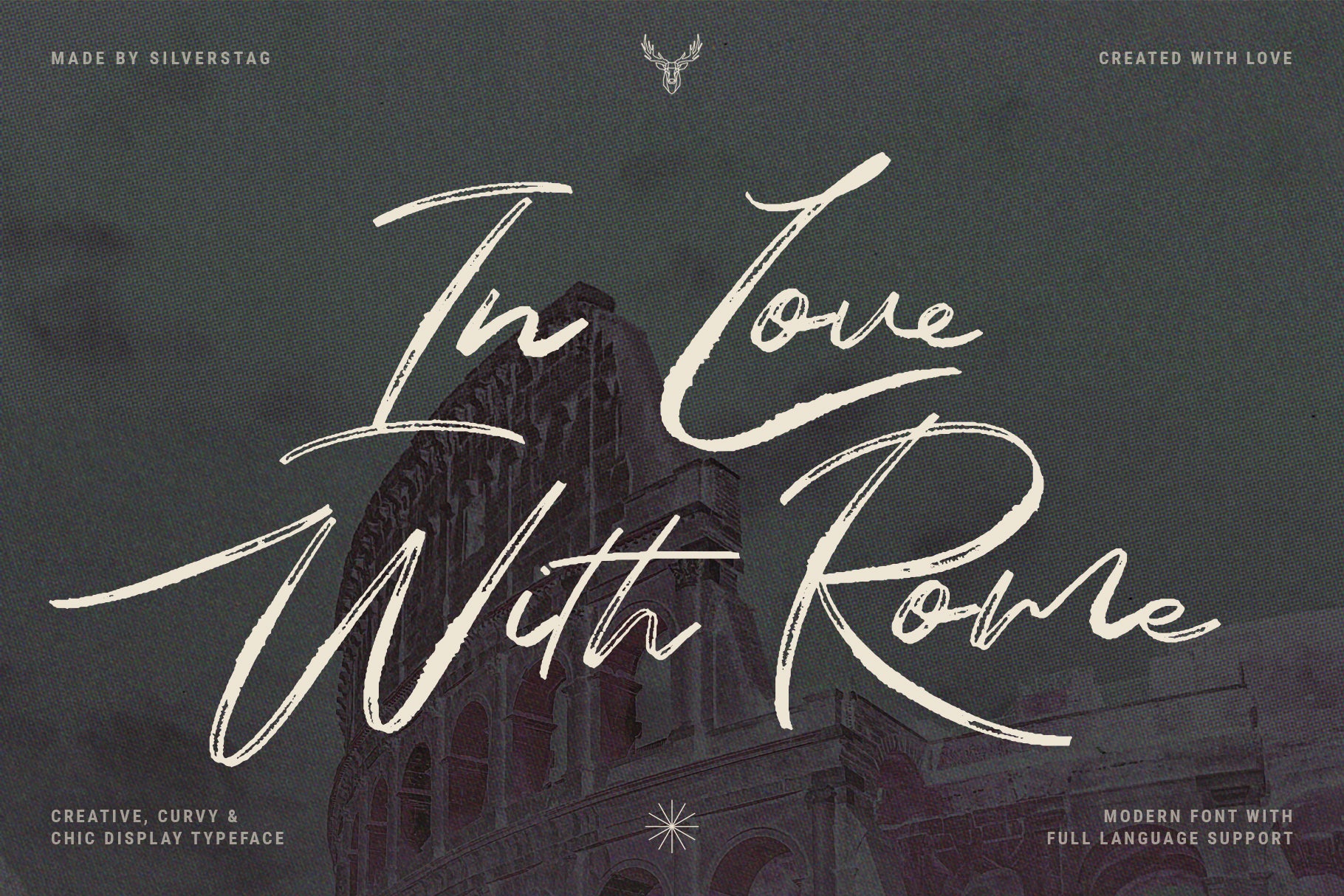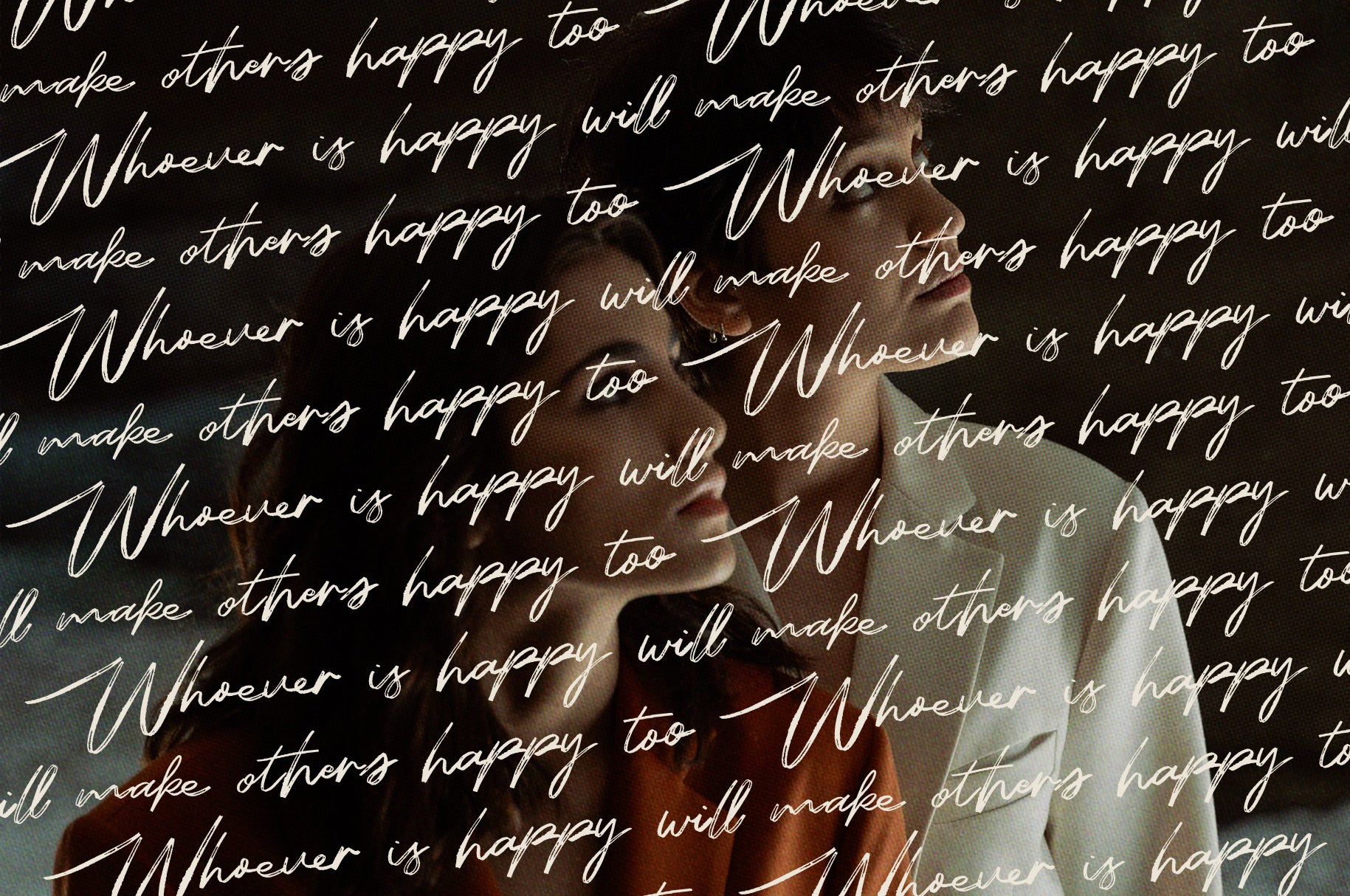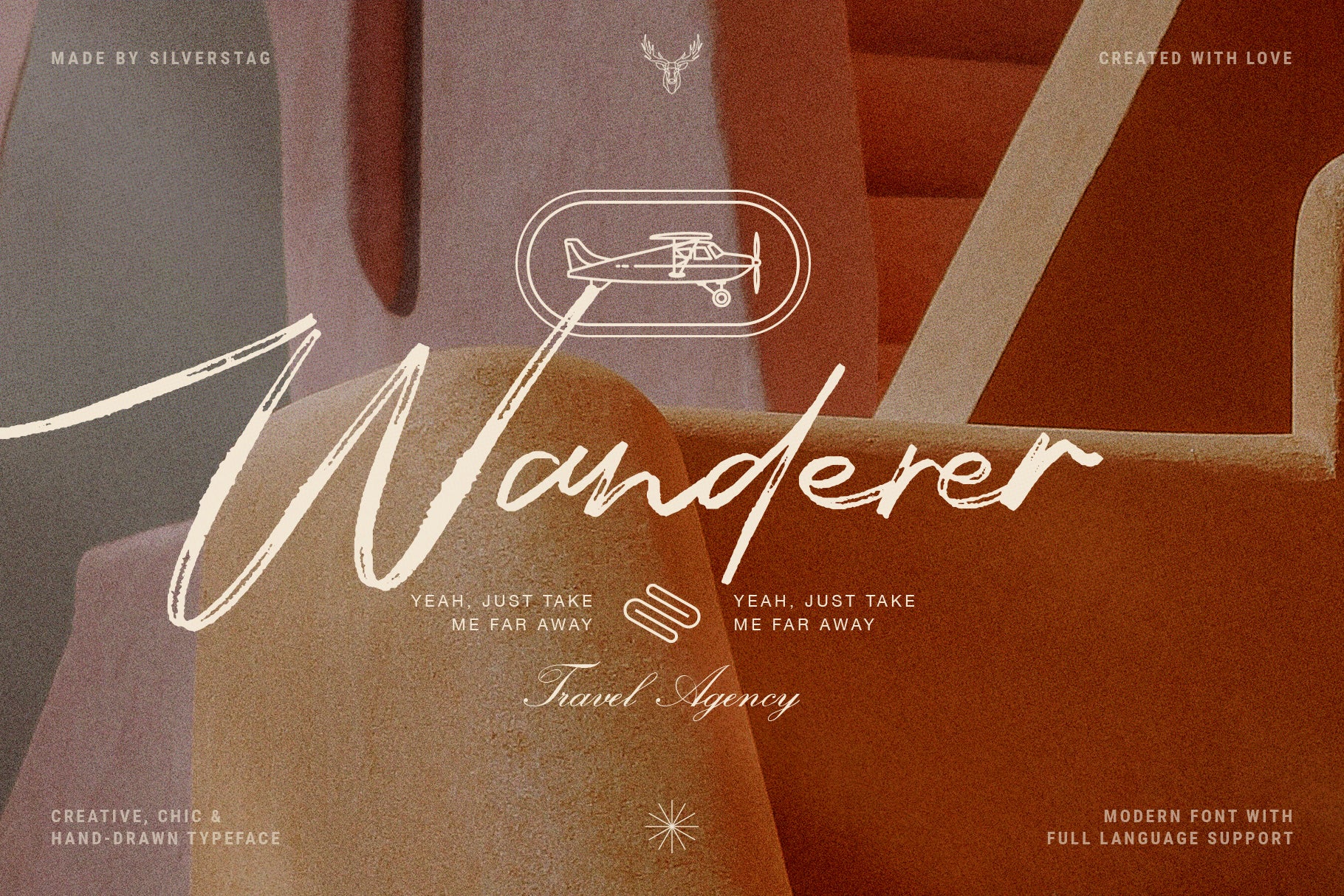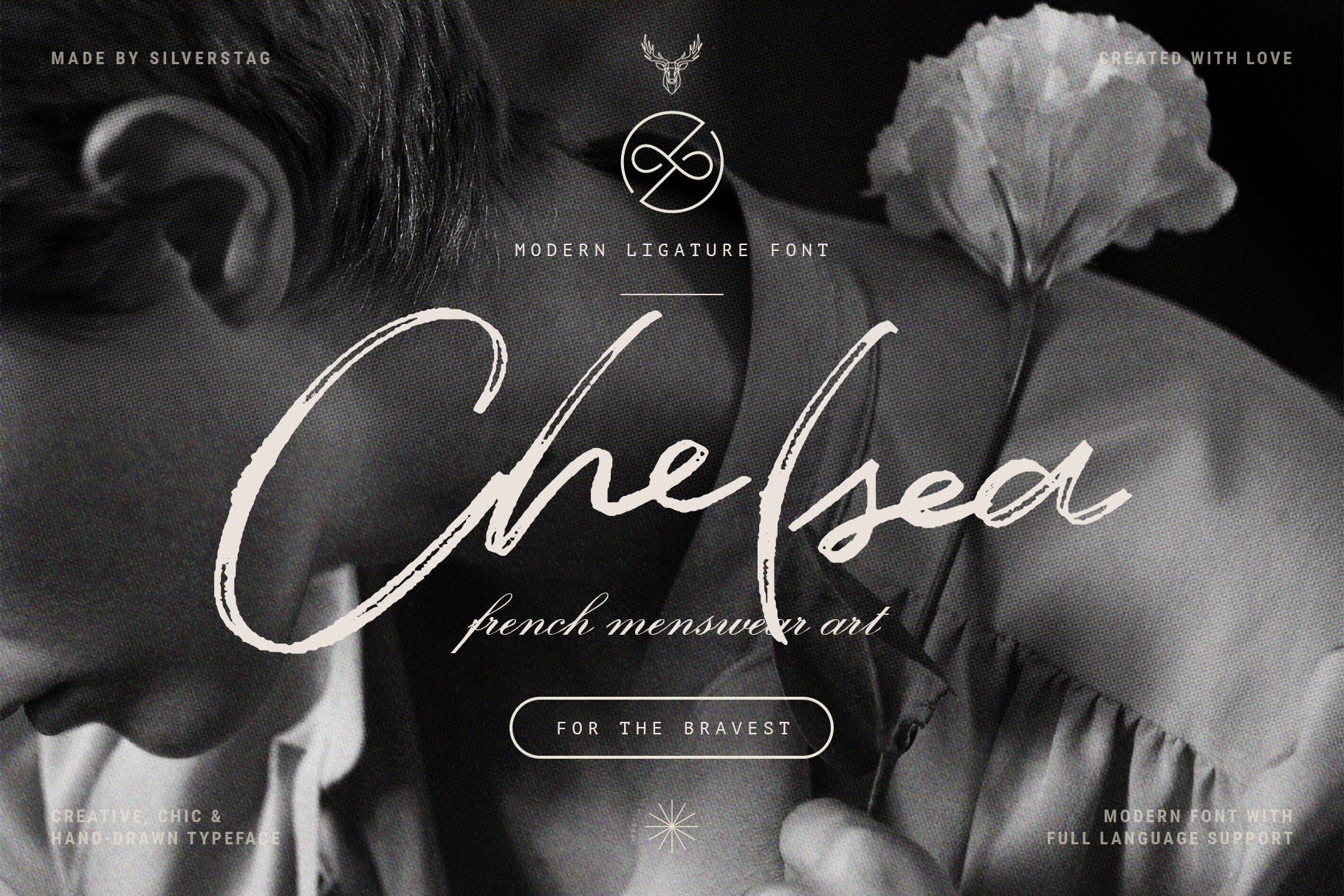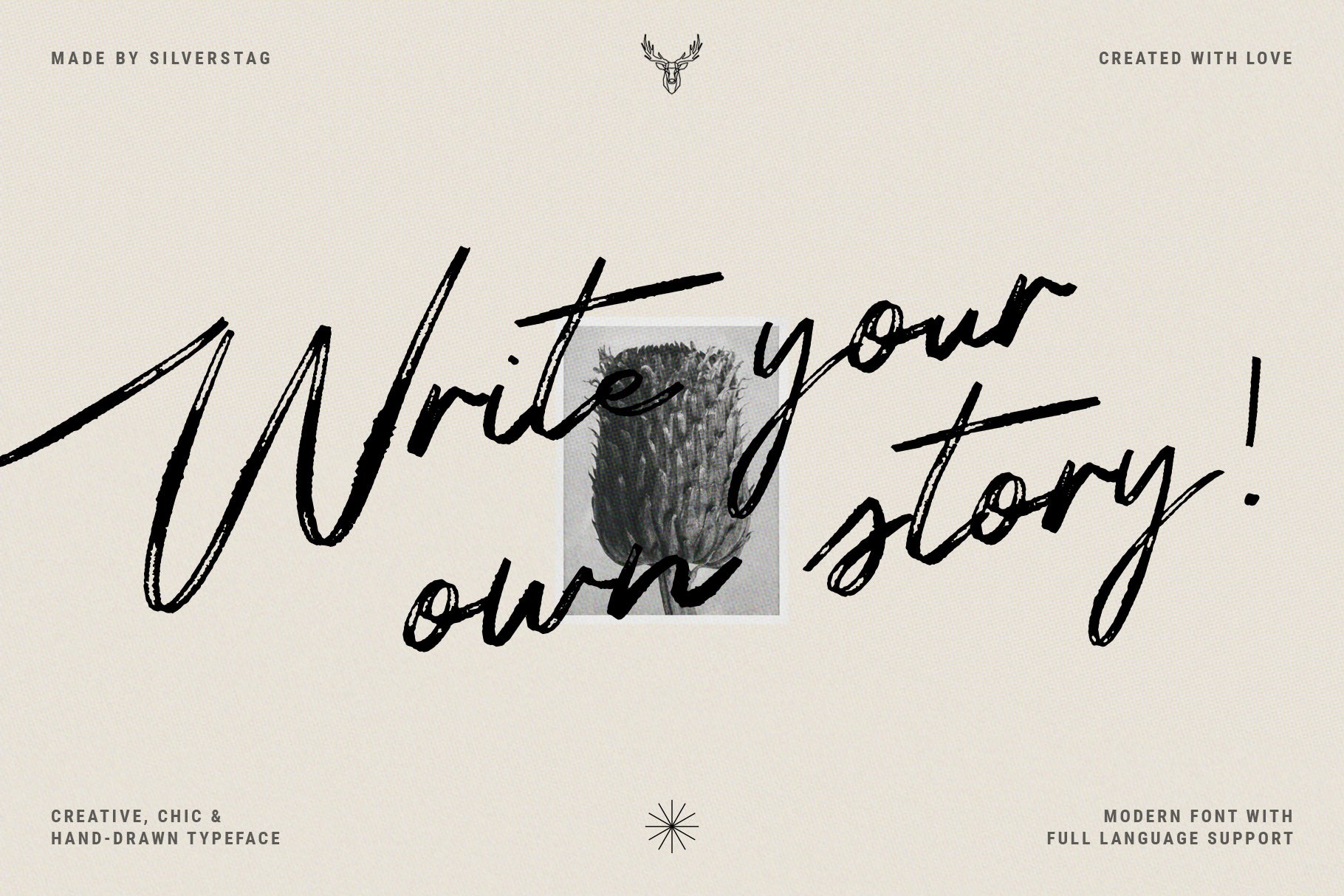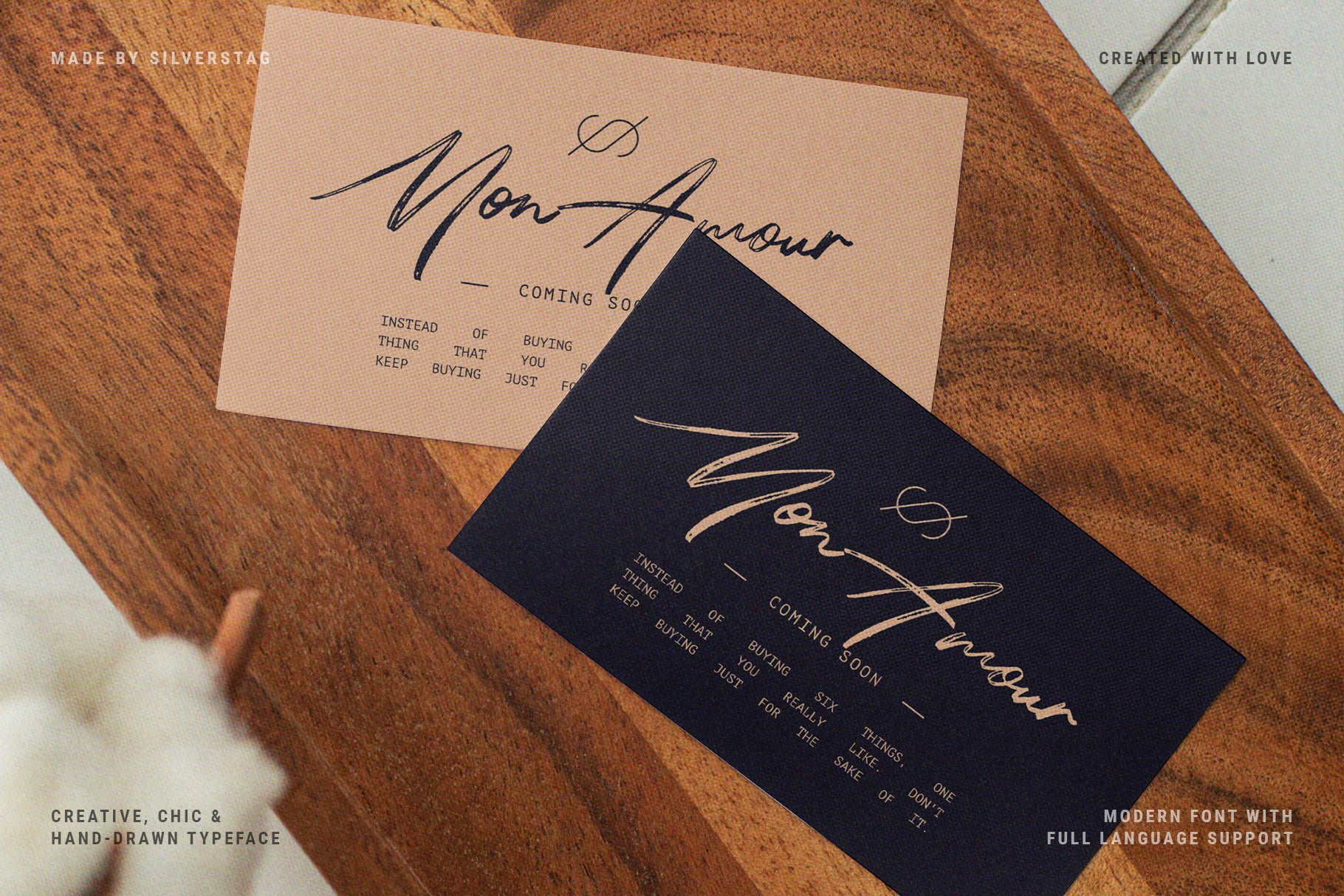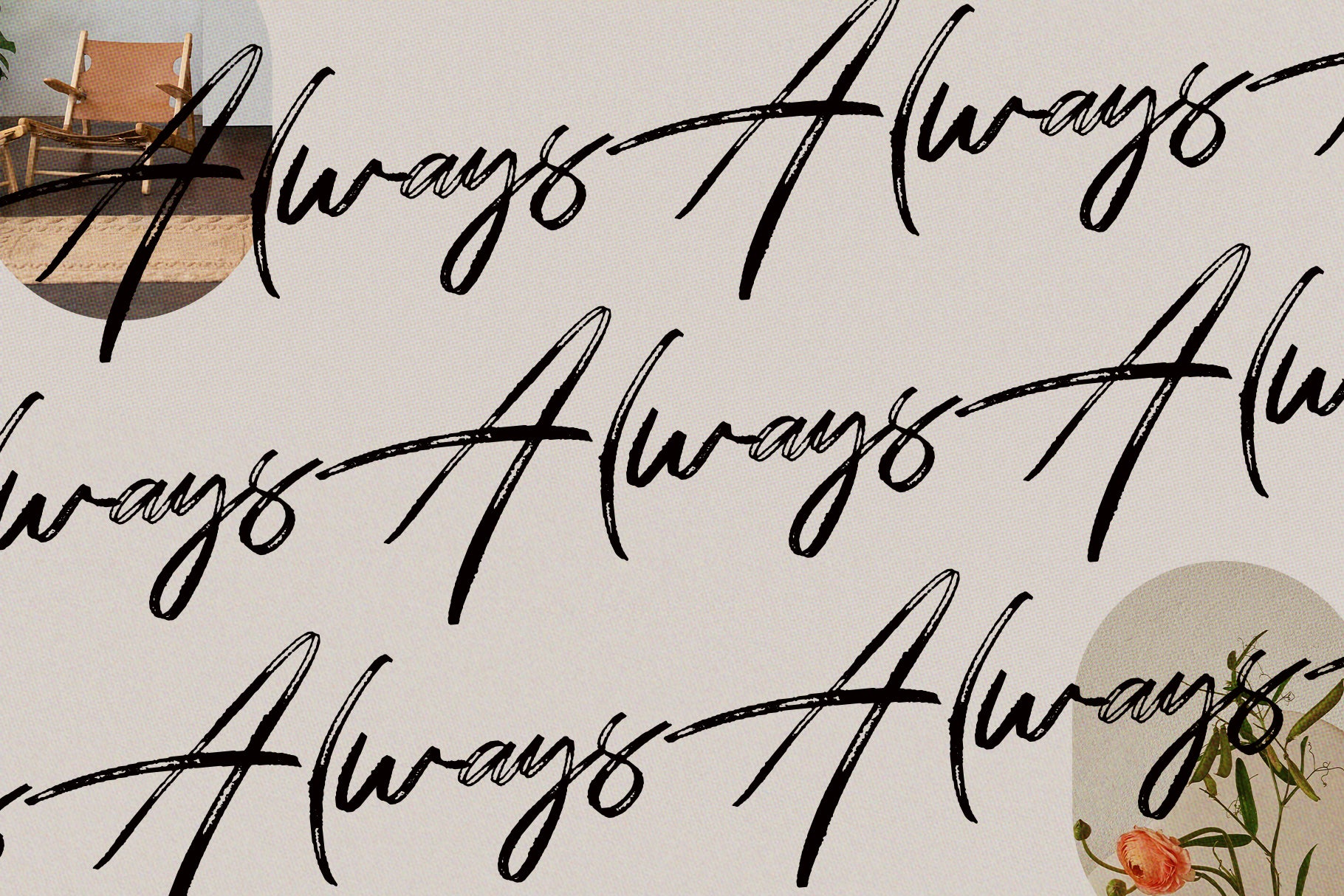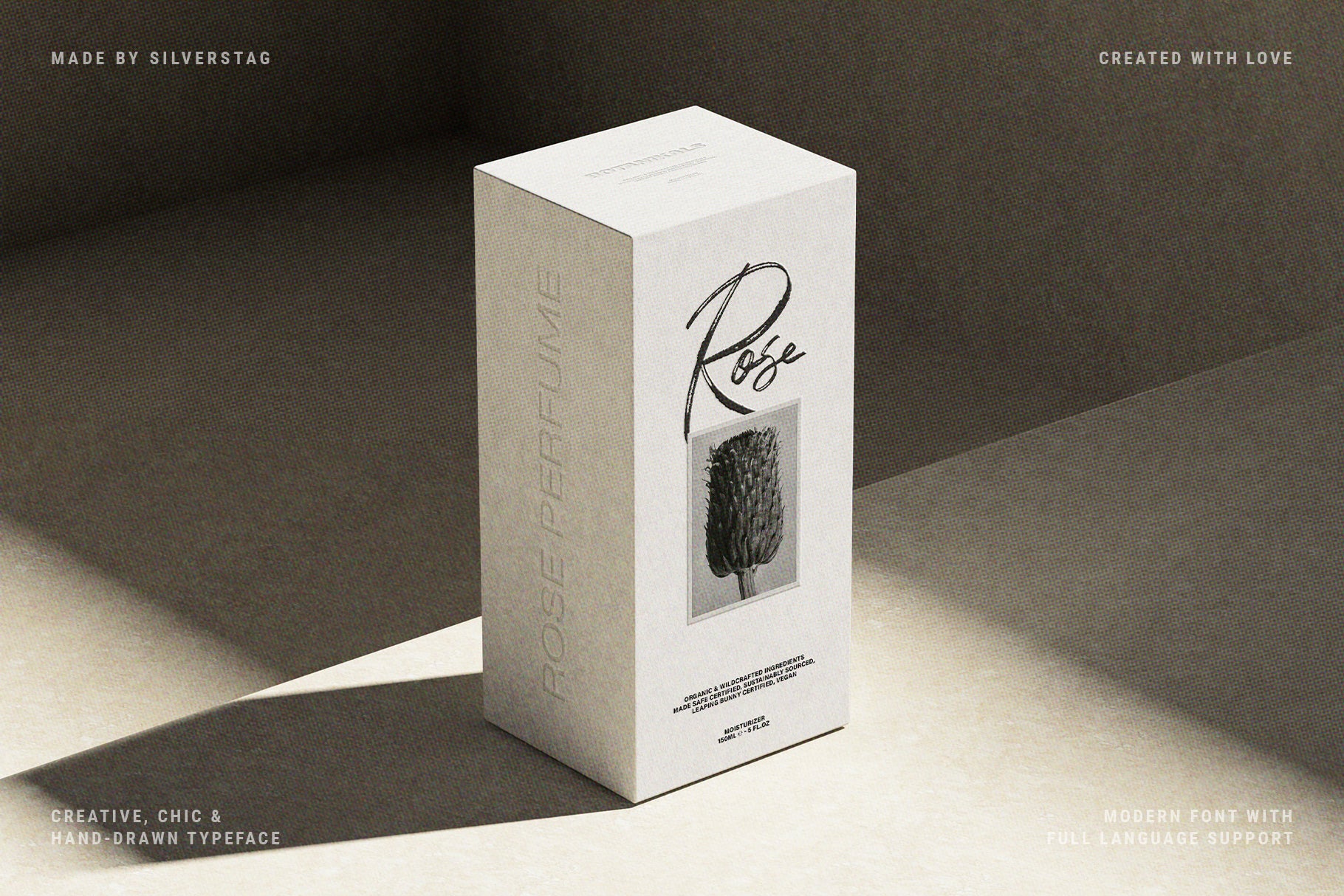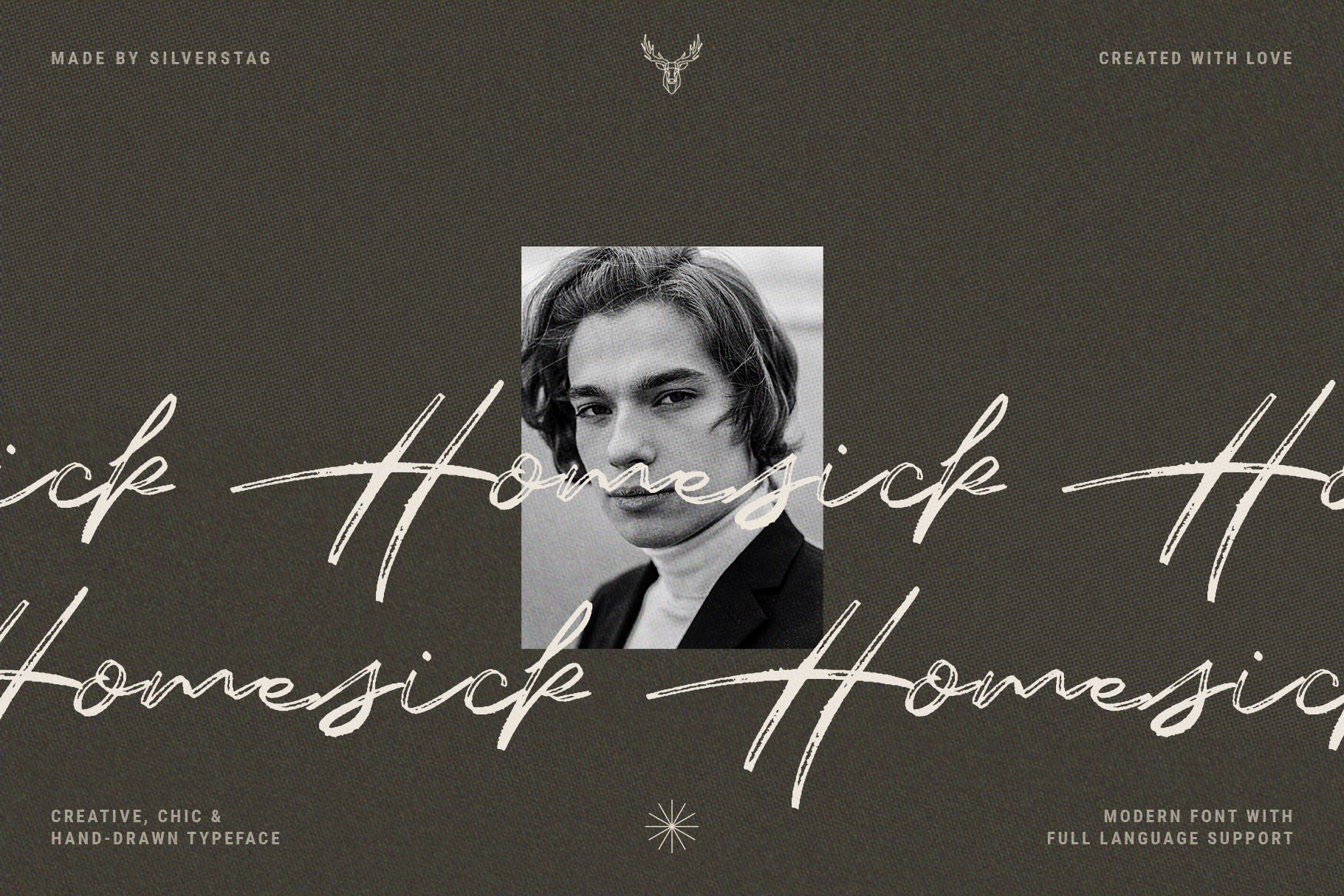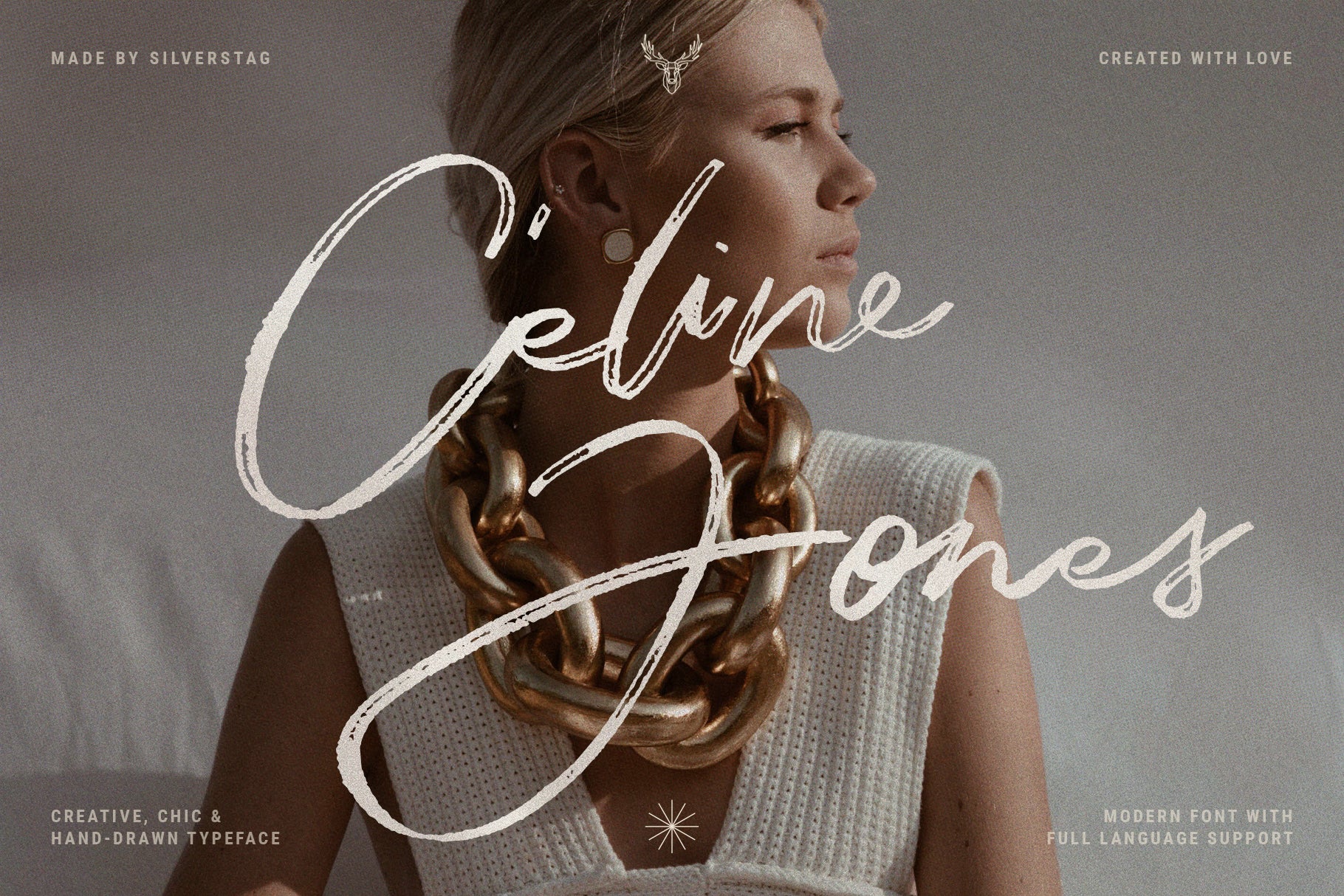
In Love With Rome Script Font
In Love With Rome Script is a stunning handwritten typeface that blends feminine charm with modern sophistication. Every letter has been lovingly crafted by hand, resulting in a script font that’s elegant, expressive, and truly unique.
With 274 ligatures and alternates, this font allows you to create custom, flowing typography that feels personal and polished. From romantic wedding invitations and elevated branding to chic social media graphics, In Love With Rome adds the perfect balance of classic grace and modern flair to your design work.
Whether you’re creating logos, packaging, event materials, or lifestyle content, this font brings a soft, stylish energy that feels effortlessly luxurious.